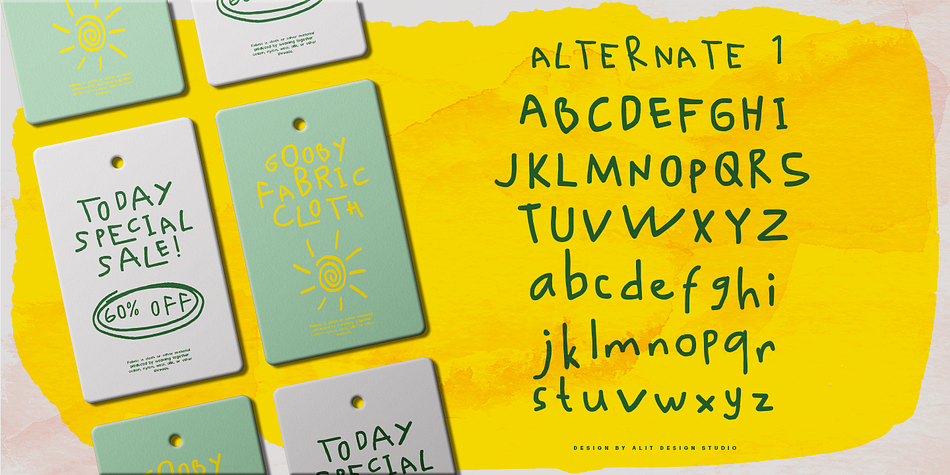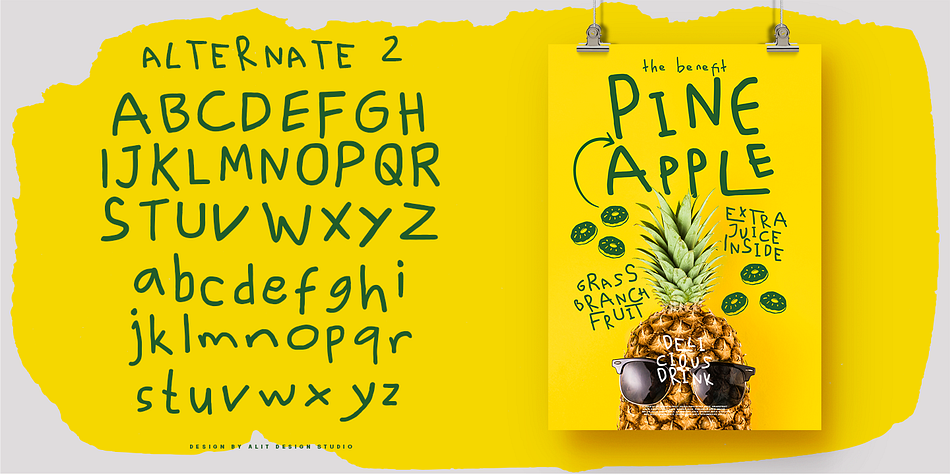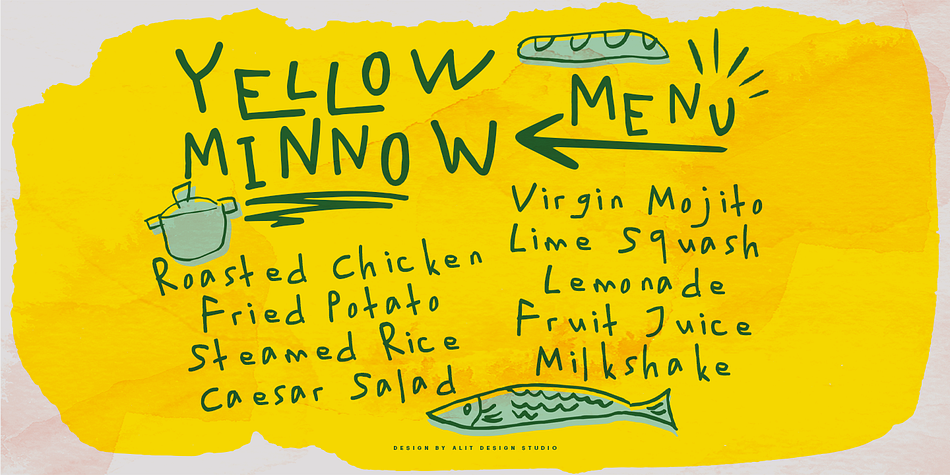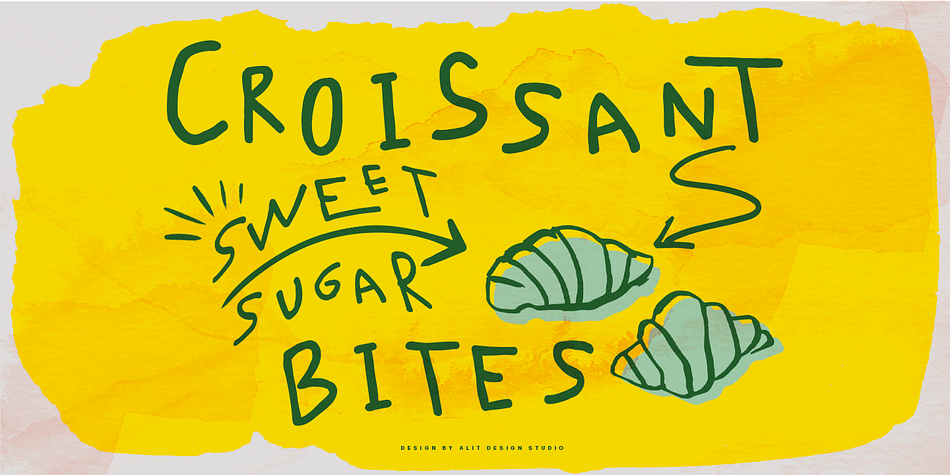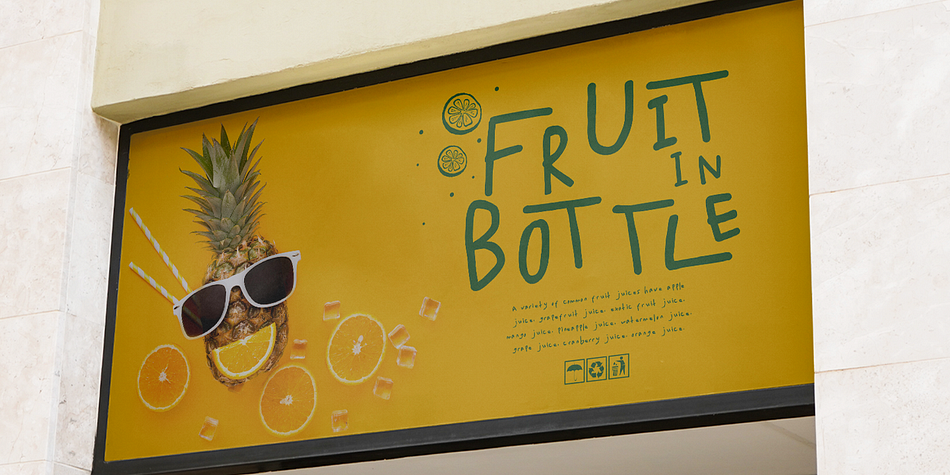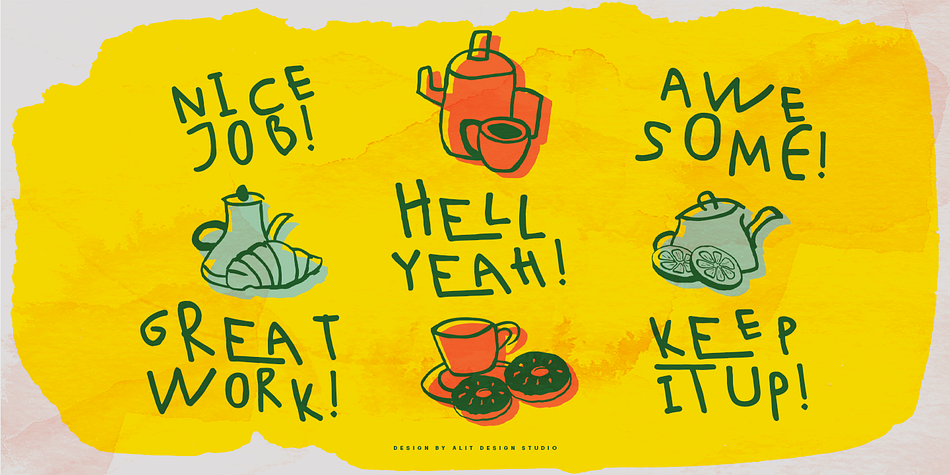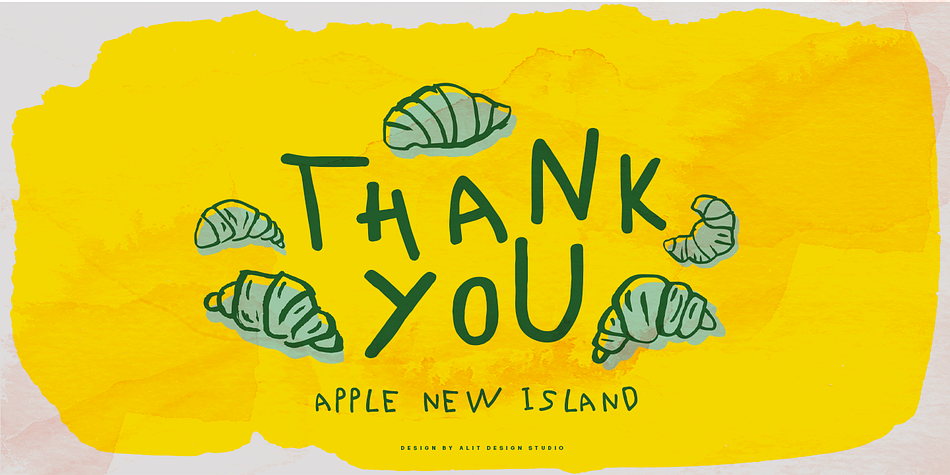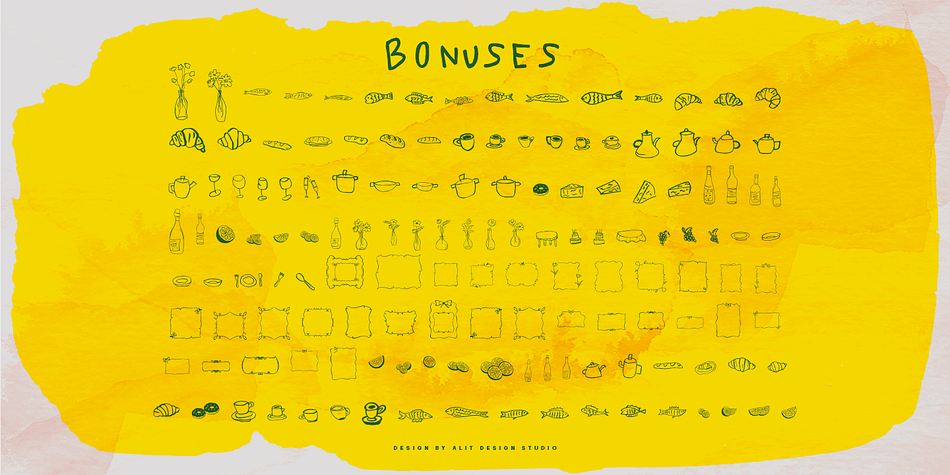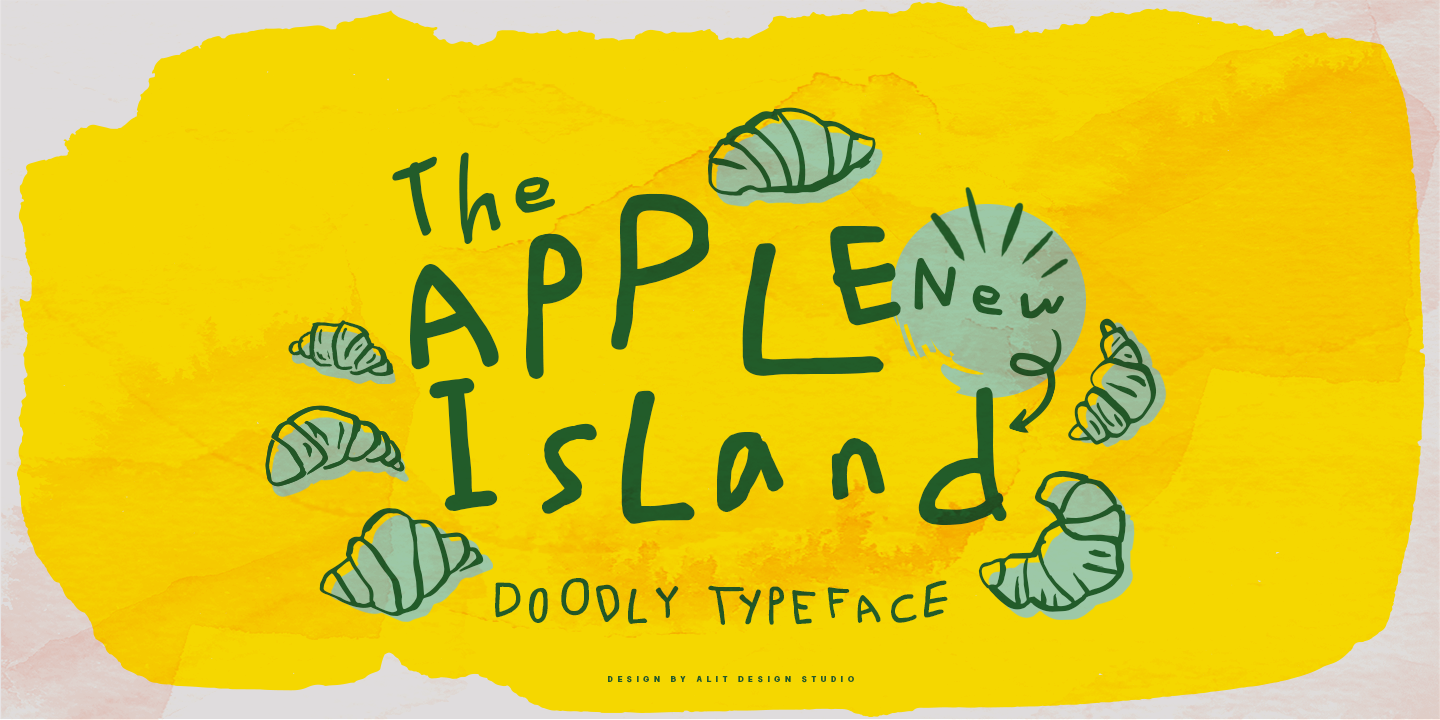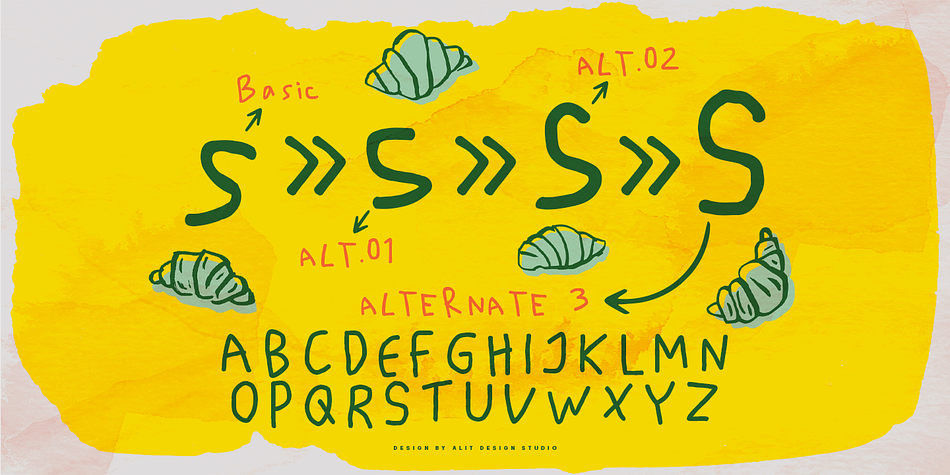
Apple New Island
Designed by Alit Suarnegara, Apple New Island is a hand drawn and dingbat font family. This typeface has two styles and was published by Alit Design.
Introducing Apple New Island, a charming handwritten sans serif font that brings a touch of whimsical elegance to your designs. Embracing the naïve yet aesthetic appeal of hand-drawn lettering, Apple New Island is the perfect blend of casual and sophisticated. This unique font captures the essence of spontaneity and creativity, making it ideal for a wide range of applications from personal projects to professional branding.
Handwritten Charm: Apple New Island exudes the authenticity of hand-crafted letters, offering a personal touch that is both engaging and inviting.
Sans Serif Simplicity: Combining the ease of sans serif readability with the playful nature of handwritten text, this font strikes the perfect balance for any design.
Aesthetic Appeal: Despite its naïve roots, Apple New Island maintains a stylish and polished look, ensuring your text stands out with a unique flair.
Versatile Use: Perfect for logos, social media graphics, invitations, stationery, and more, Apple New Island adapts to various creative contexts with ease.
Unique Personality: Each character is carefully designed to maintain consistency while offering a distinct and quirky personality, making your text lively and memorable.
Apple New Island isn’t just a font; it’s a statement. Whether you’re looking to add a bit of fun to your branding, make your social media posts pop, or bring a personal touch to your print materials, Apple New Island delivers. Its approachable yet stylish design ensures your message is communicated clearly and with character.